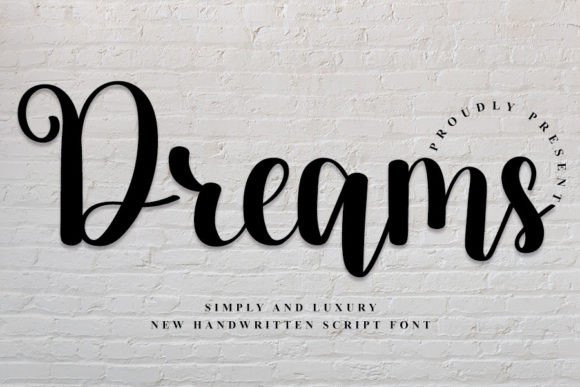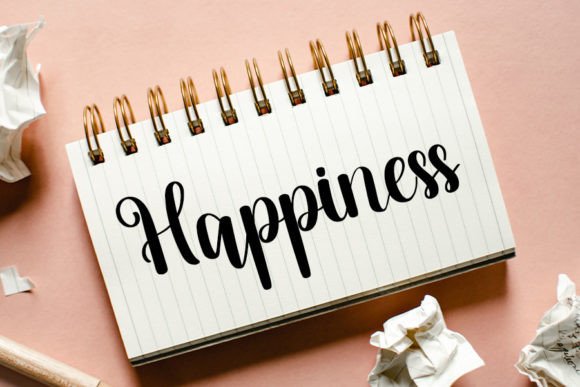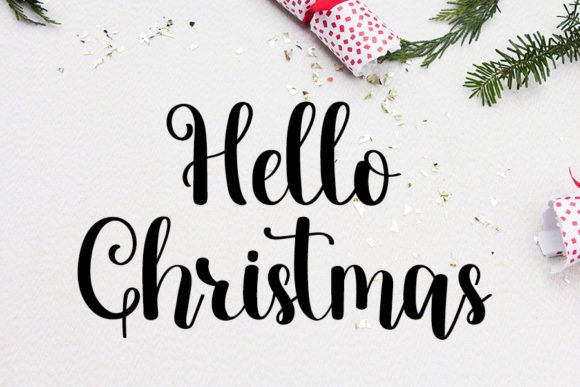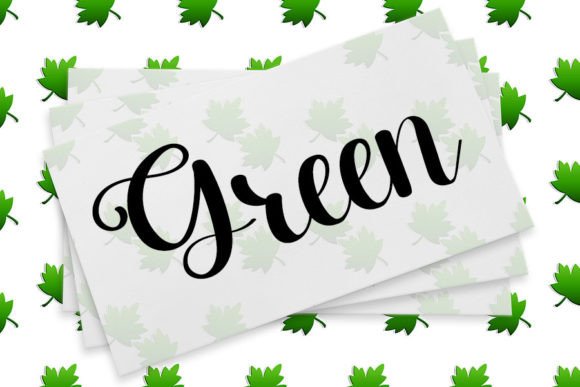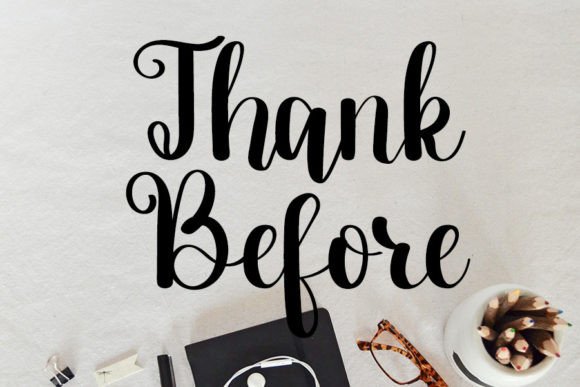
Dreams Font
About Dreams Font
Dreams Font is a trendy and elegant handwritten typeface that beautifully combines the timeless beauty of classic calligraphy with a fresh, contemporary style. This font’s impeccable form and refined strokes bring a sophisticated charm to any design project. Whether you’re creating wedding invitations, luxury branding, or stylish social media graphics, Dreams adds a touch of elegance and class that elevates your work.
A Fusion of Classic Elegance and Modern Style
Dreams Font draws inspiration from traditional calligraphy but reinterprets it with a sleek, modern edge. Each character is designed with smooth curves and balanced proportions, providing both readability and artistic flair. This blend of old and new makes it a versatile choice for designers seeking to create sophisticated and eye-catching visuals.
Ideal Uses for Dreams Font
Thanks to its elegant style and high legibility, Dreams Font is perfect for a wide range of design projects, including:
• Wedding invitations and save-the-date cards
• Branding and logo design for luxury products
• Editorial layouts in magazines and books
• Social media posts and promotional materials
• Event signage and personalized stationery
Its graceful appearance enhances both formal and contemporary themes, making it suitable for diverse creative needs.
Why Choose Dreams Font?
Designers appreciate Dreams Font for its:
• Impeccable, flowing letterforms inspired by classic calligraphy
• Clear readability, even at smaller sizes
• PUA encoding that allows easy access to special characters and stylistic alternates
This combination of beauty and functionality ensures that Dreams Font is not only visually stunning but also practical.
Elevate Your Designs with Dreams Font
Typography plays a vital role in shaping the mood and tone of a design. With Dreams Font, you can effortlessly convey sophistication, romance, and elegance. This font’s refined style adds depth and personality, making your projects feel luxurious and memorable.
Whether used for a romantic wedding invitation or a high-end product label, Dreams enhances your design with a timeless, classy aesthetic.
In summary, Dreams Font is an exquisite handwritten script that perfectly balances classic beauty with modern sophistication. It’s an ideal choice for designers who want to add elegance and class to their work. From weddings to luxury branding and beyond, Dreams Font will elevate your creative projects with its impeccable style.